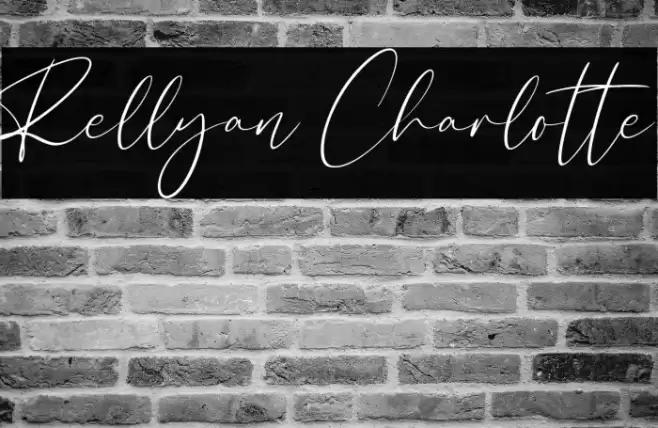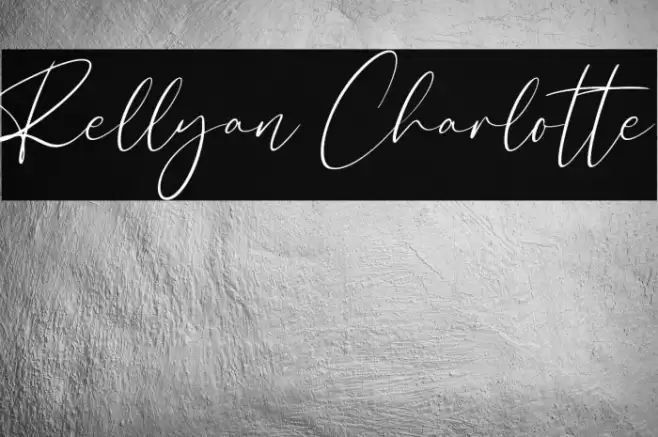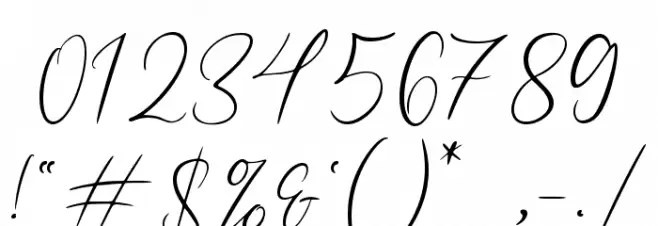
Rellyan Charlotte Font
Rellyan Charlotte Description
This font exudes elegance and sophistication with its fluid, cursive style. The characters are crafted with a delicate touch, featuring thin, graceful strokes that create a sense of movement and fluidity. Each letter connects seamlessly, enhancing the script's flowing nature. The uppercase letters are bold and prominent, while the lowercase letters maintain a consistent, harmonious appearance. The numerals and special characters are designed with the same attention to detail, ensuring a cohesive look throughout. This font is perfect for projects that require a touch of class and refinement.
An elegant, flowing cursive font with thin, graceful strokes from Uncategorized fonts.
- Proposed Projects: Ideal for wedding invitations, elegant branding, personal signatures, and high-end product packaging.
- Weight: Light
- Overall Style: Elegant
- Use Case: Logos, Invitations, Branding